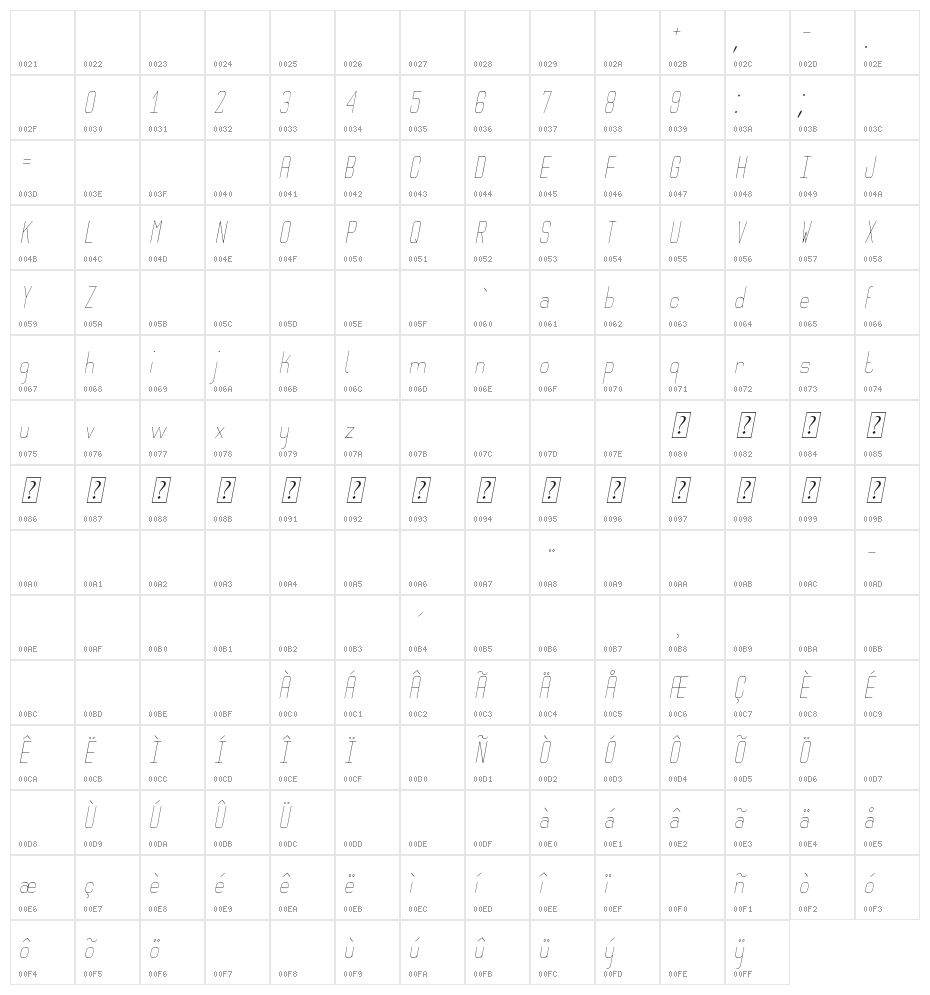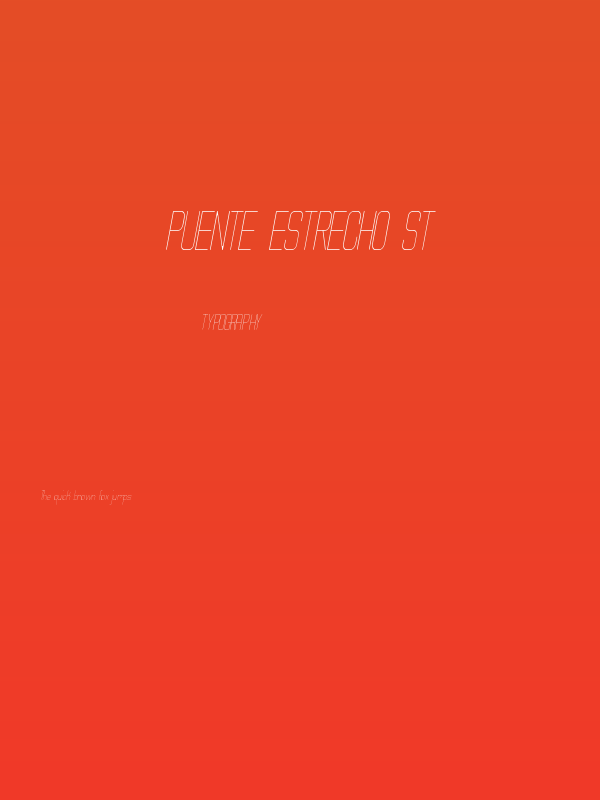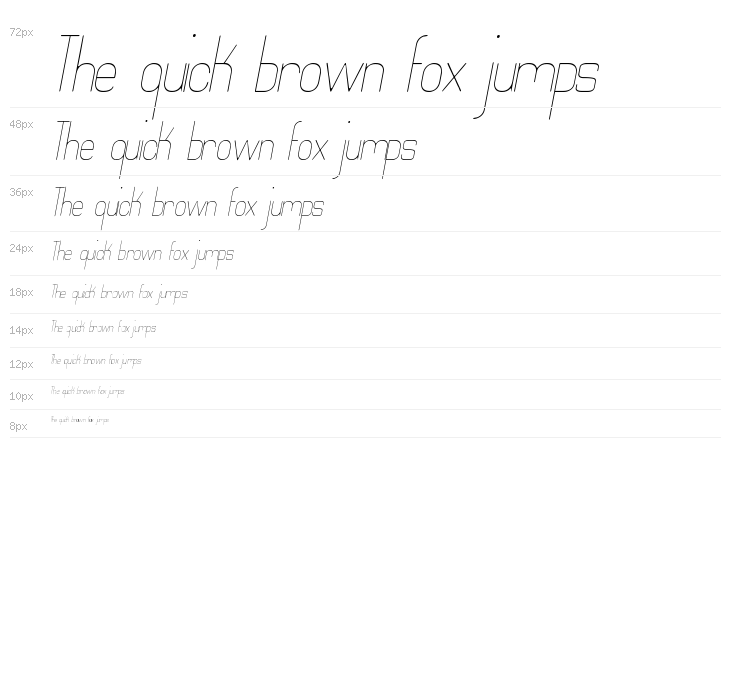
Puente Estrecho St Font
Puente Estrecho St Description
This font features a sleek, modern design with elongated, narrow letterforms that convey a sense of elegance and sophistication. The characters are slightly slanted, giving them a dynamic, italicized appearance. The strokes are thin and consistent, contributing to a clean and minimalist aesthetic. The uppercase and lowercase letters maintain a uniform style, with subtle variations in curvature and line length that add visual interest. The numerals are designed to match the overall style, ensuring consistency across all characters. Special characters are included, maintaining the same thin, elongated form. This font is ideal for projects that require a contemporary and stylish look.
| Use Case | Headlines, Logos, Editorial design |
| Proposed Projects | Ideal for fashion branding, modern editorial design, sleek product packaging, and stylish website headers. |